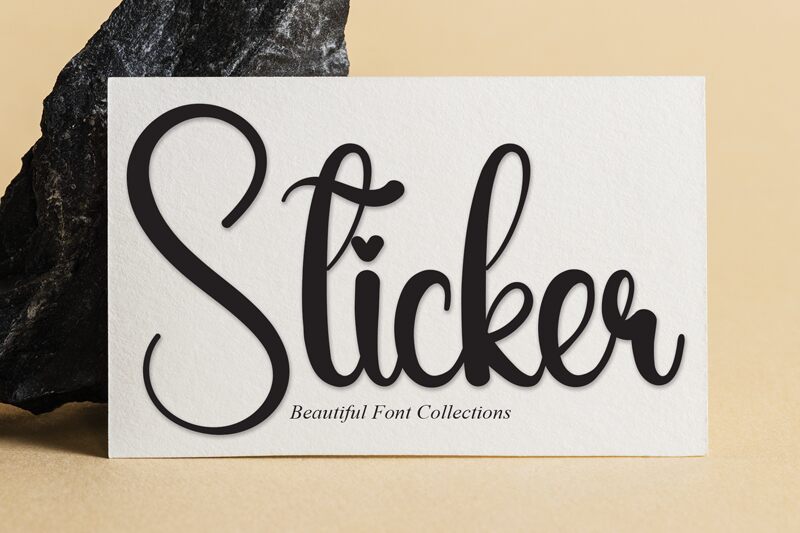
Sticker
Sticker is a captivating calligraphic font that exudes effortless elegance. Designed by Andi Moz, this stunning typeface boasts fluid, organic strokes that seamlessly flow together, creating a sense of graceful movement.
The font's bold, expressive lines lend it a striking visual impact, making it an ideal choice for a variety of design applications, from eye-catching logotypes and product packaging to impactful headlines and decorative accents. Sticker's versatility shines through in its ability to convey a range of moods, from the playful and whimsical to the sophisticated and refined.
Its distinctive character and versatility make it a valuable asset for designers seeking to add a touch of artistry and flair to their work.